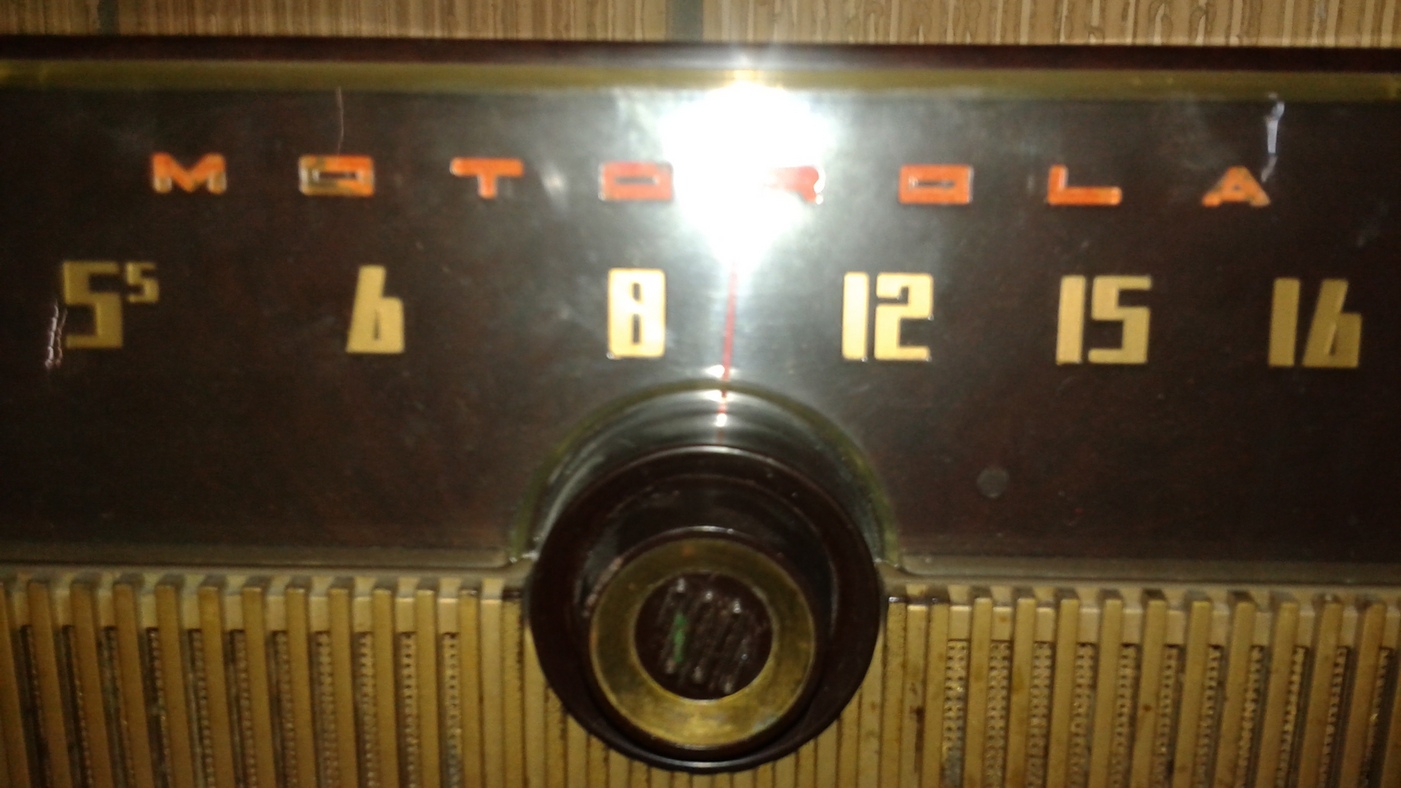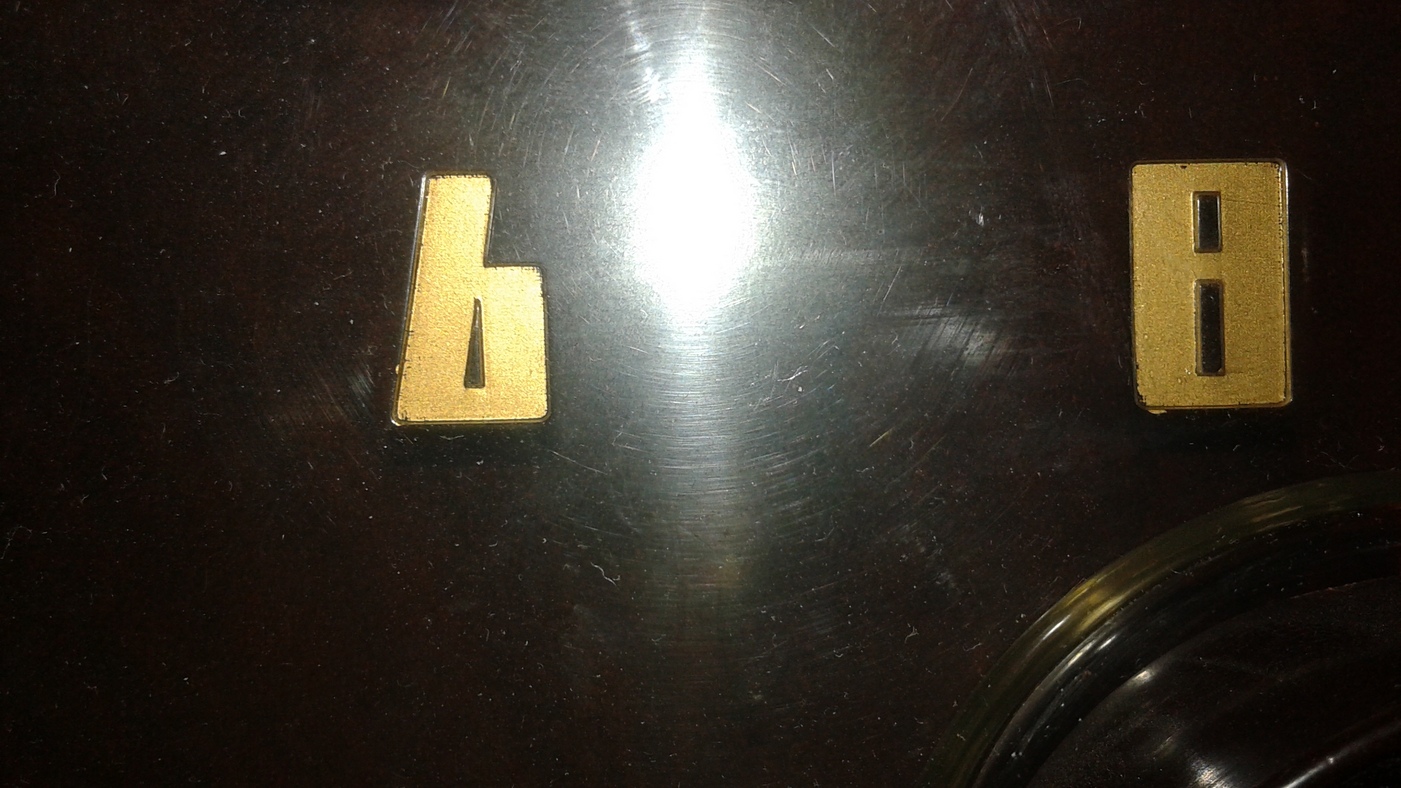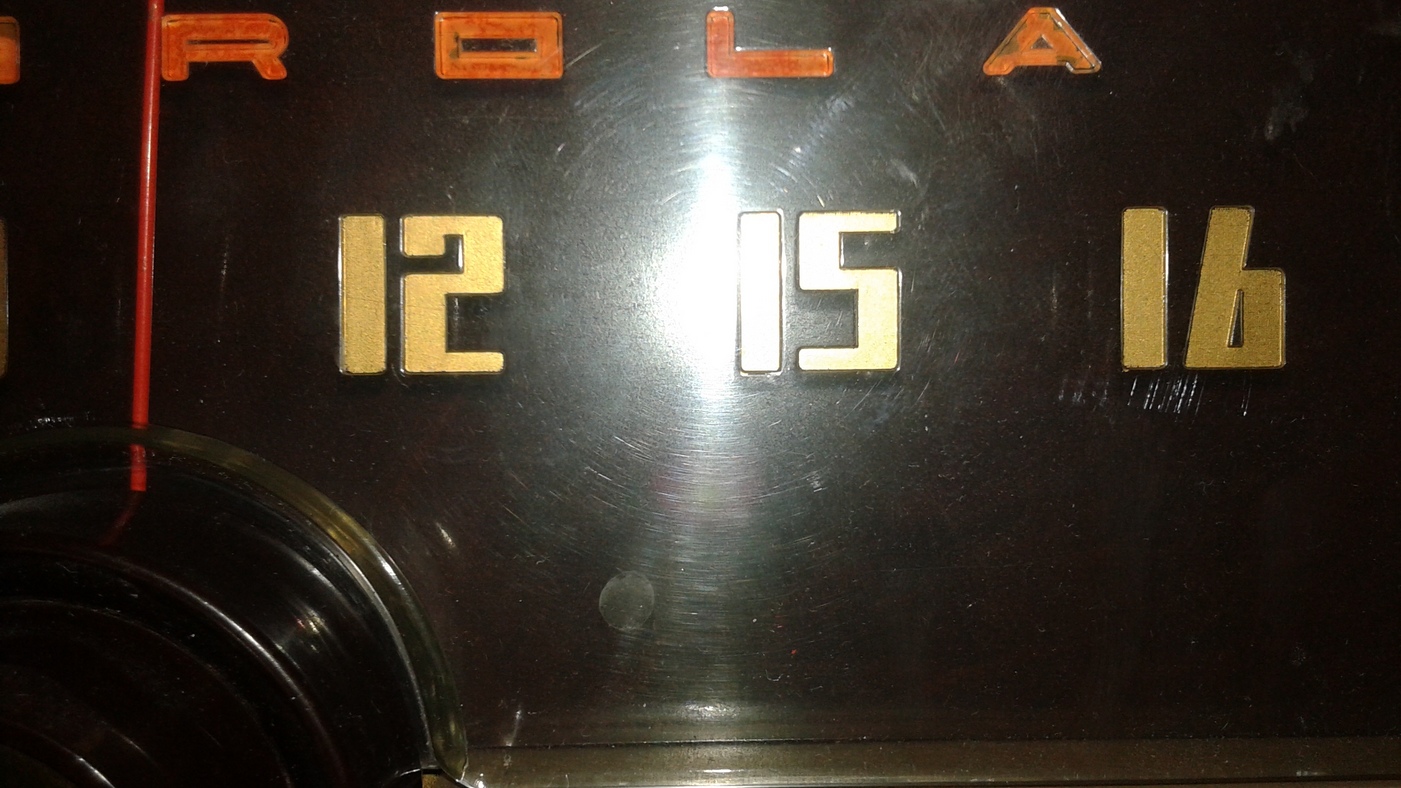
Motorola (Canada)radio font 1953
Hoping some skilled person can identify the font on my old motorola radio ml-52H model. I really like the numbers especially the 6 and the 2. I hope to identify them and 3D print them for my house numbers out front.